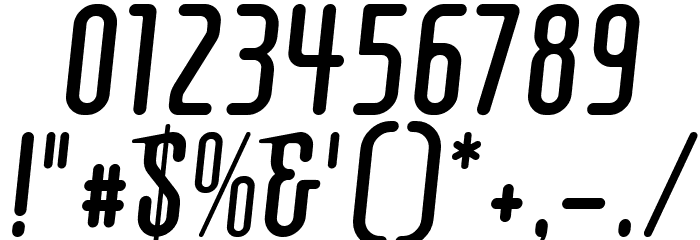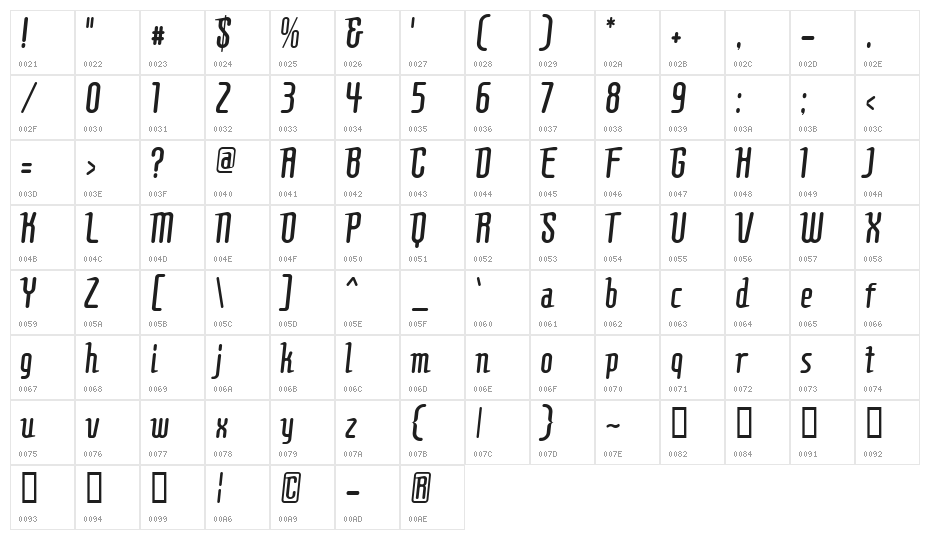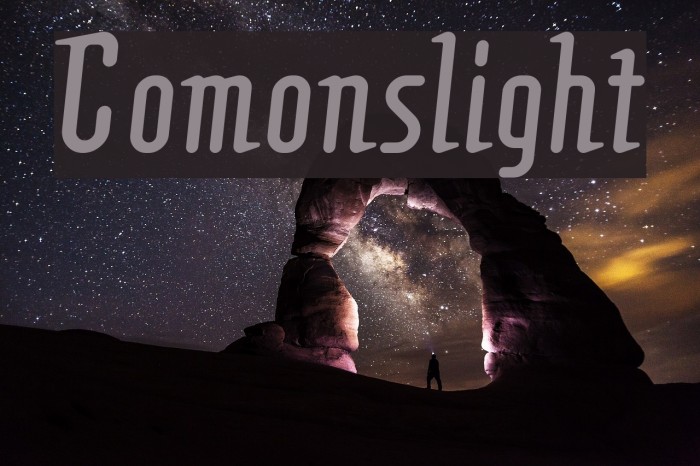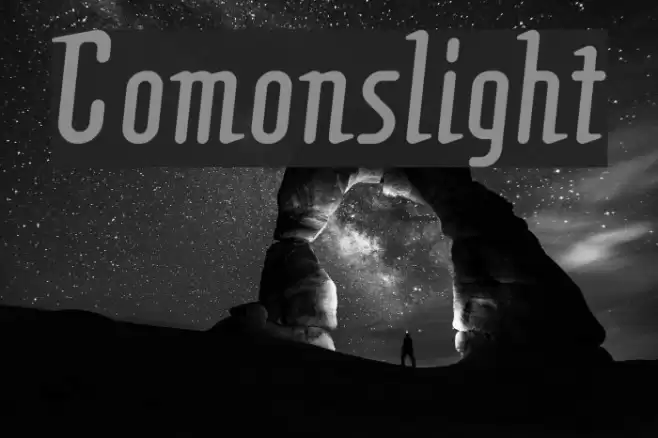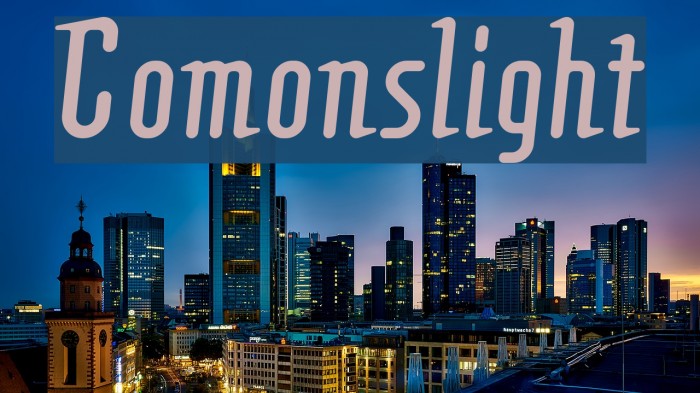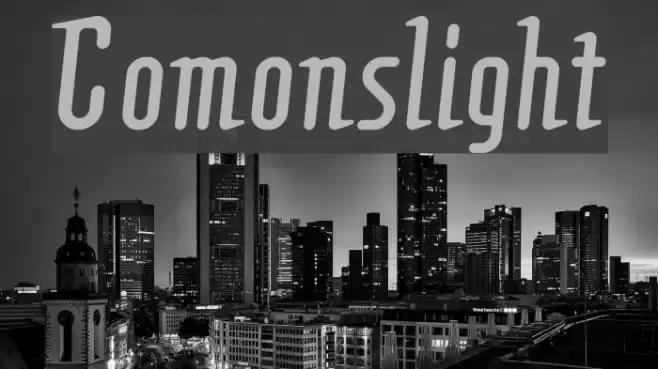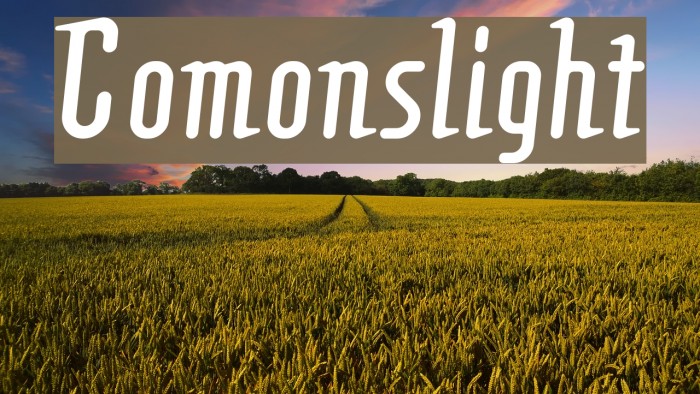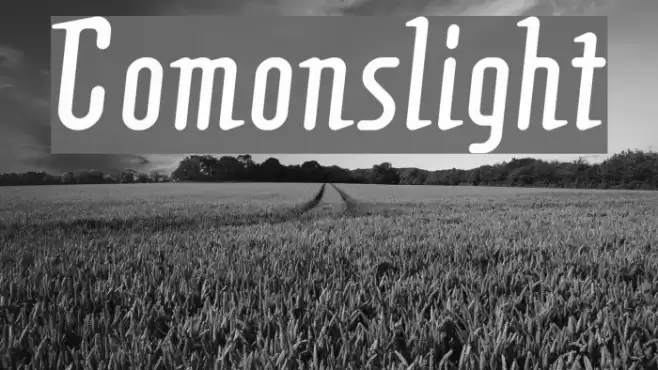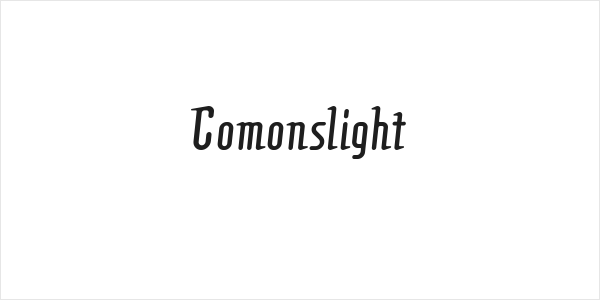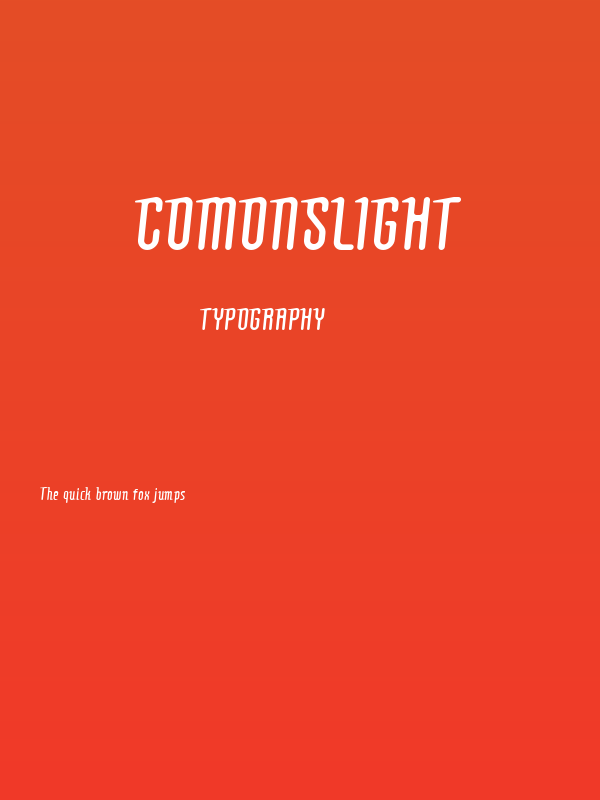
Comonslight Font
Comonslight Description
This font features a modern and sleek design with a slight slant, giving it a dynamic and energetic feel. The characters are elongated with rounded edges, creating a sense of movement and fluidity. The uppercase and lowercase letters maintain a consistent style, with the lowercase letters slightly more compact. Numbers and special characters follow the same design principles, ensuring uniformity across all glyphs. The font's clean lines and contemporary aesthetic make it versatile for various design applications.
| Proposed Projects | Ideal for branding, sports team logos, dynamic posters, and modern web design. |